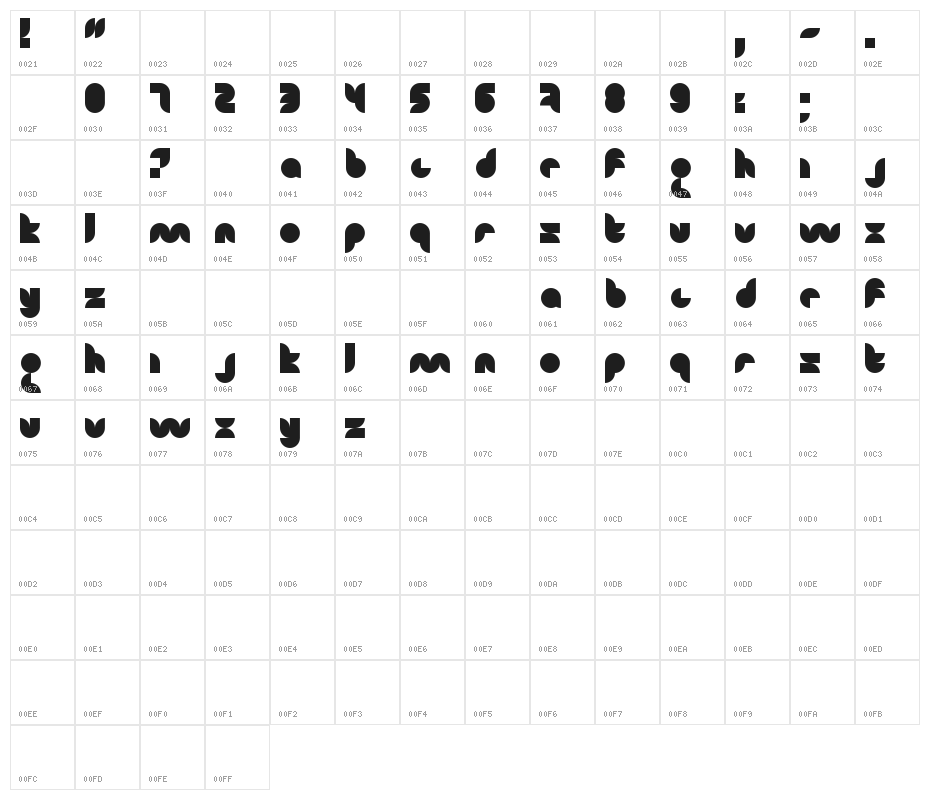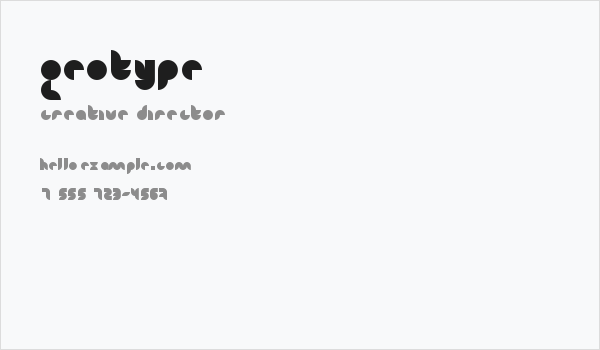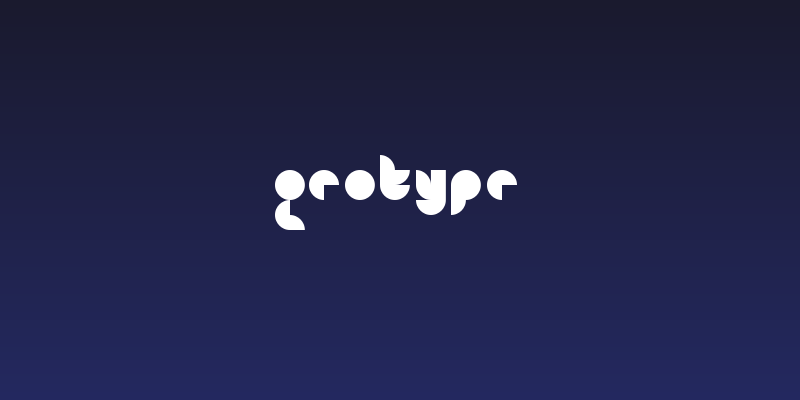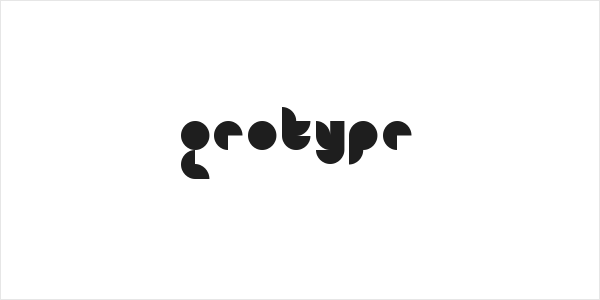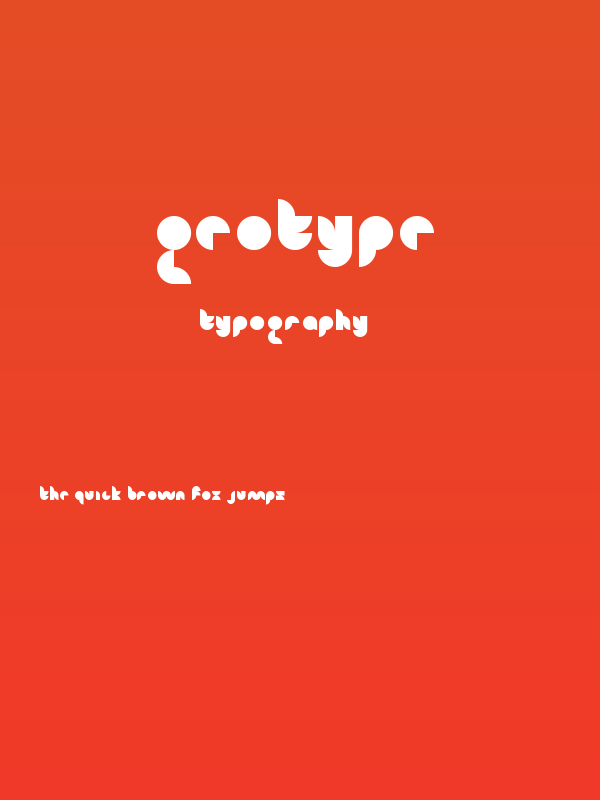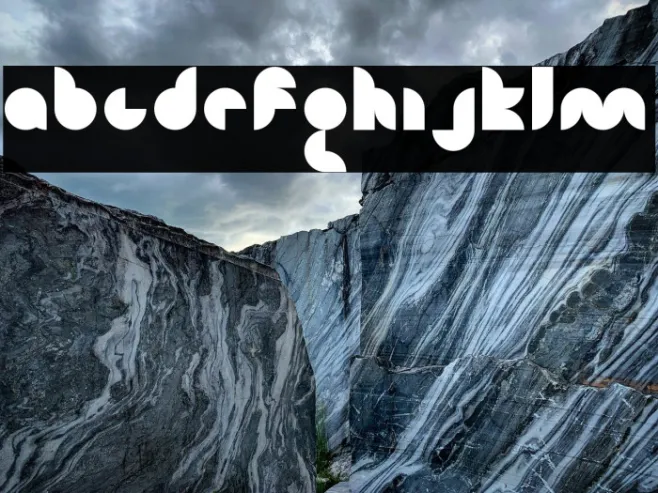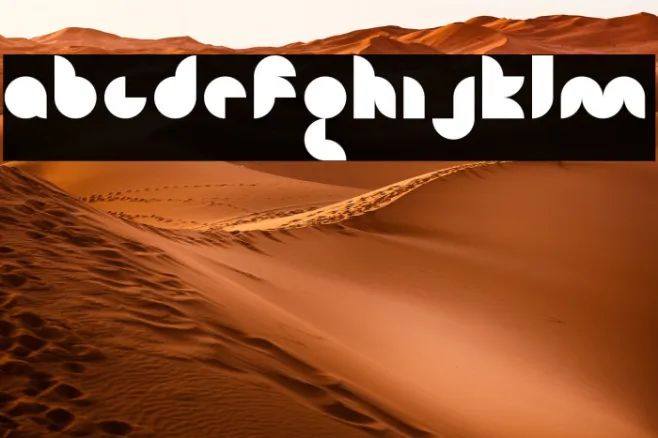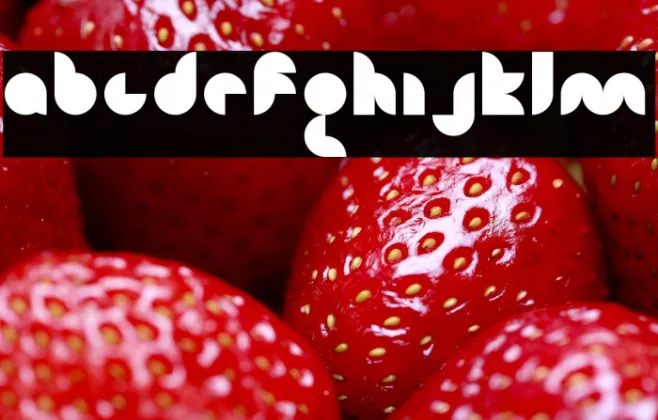
geotype Font
geotype Description
This font features a bold and geometric design, characterized by its use of solid, rounded shapes and sharp angles. The letters are constructed with a consistent thickness, creating a uniform appearance across the alphabet. The style is distinctly modern, with a playful yet structured aesthetic. The characters are tightly spaced, enhancing the compact and cohesive look. The numbers and special characters follow the same geometric theme, ensuring a harmonious overall design. This font is ideal for projects that require a strong visual impact and a contemporary feel.